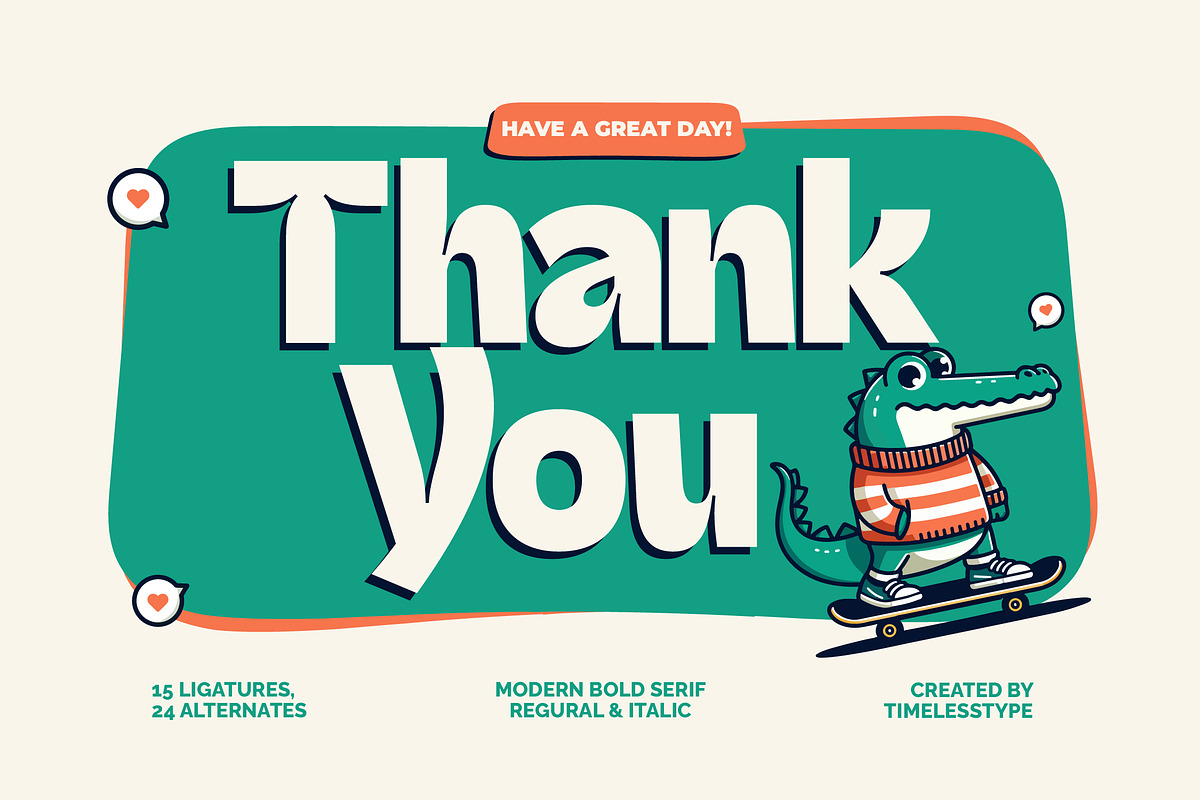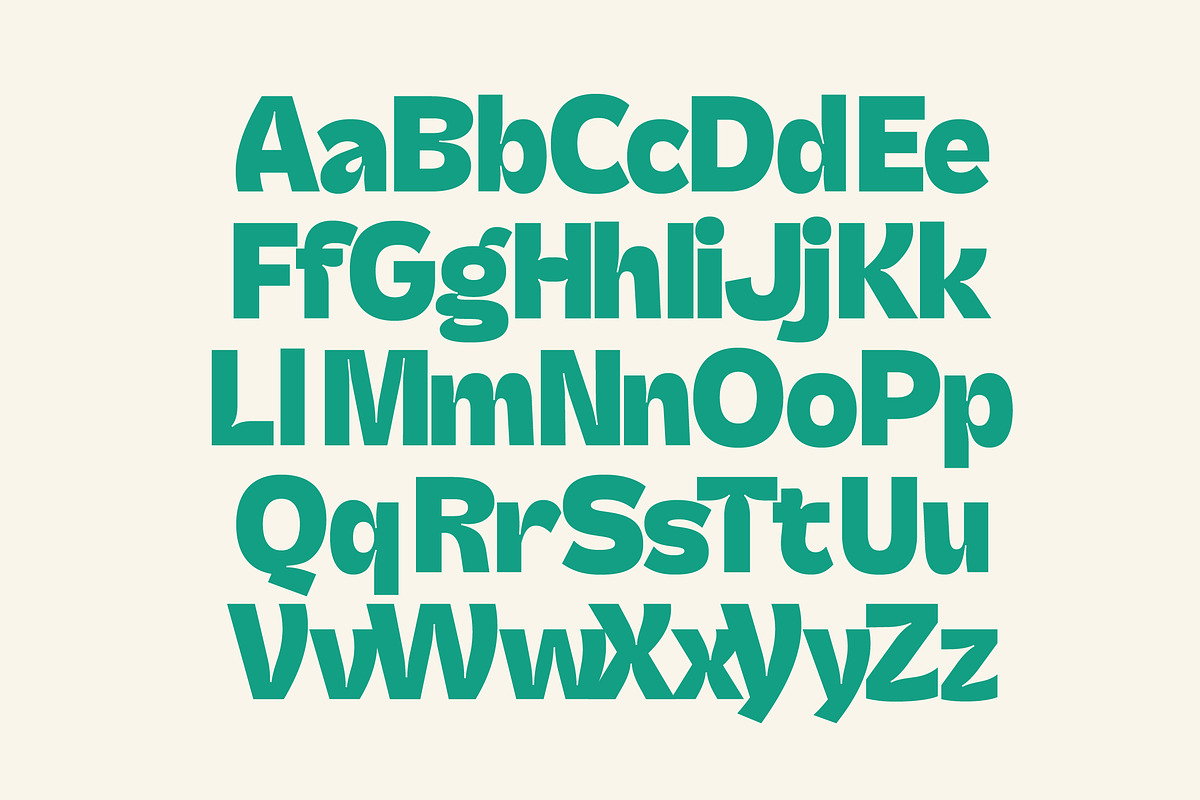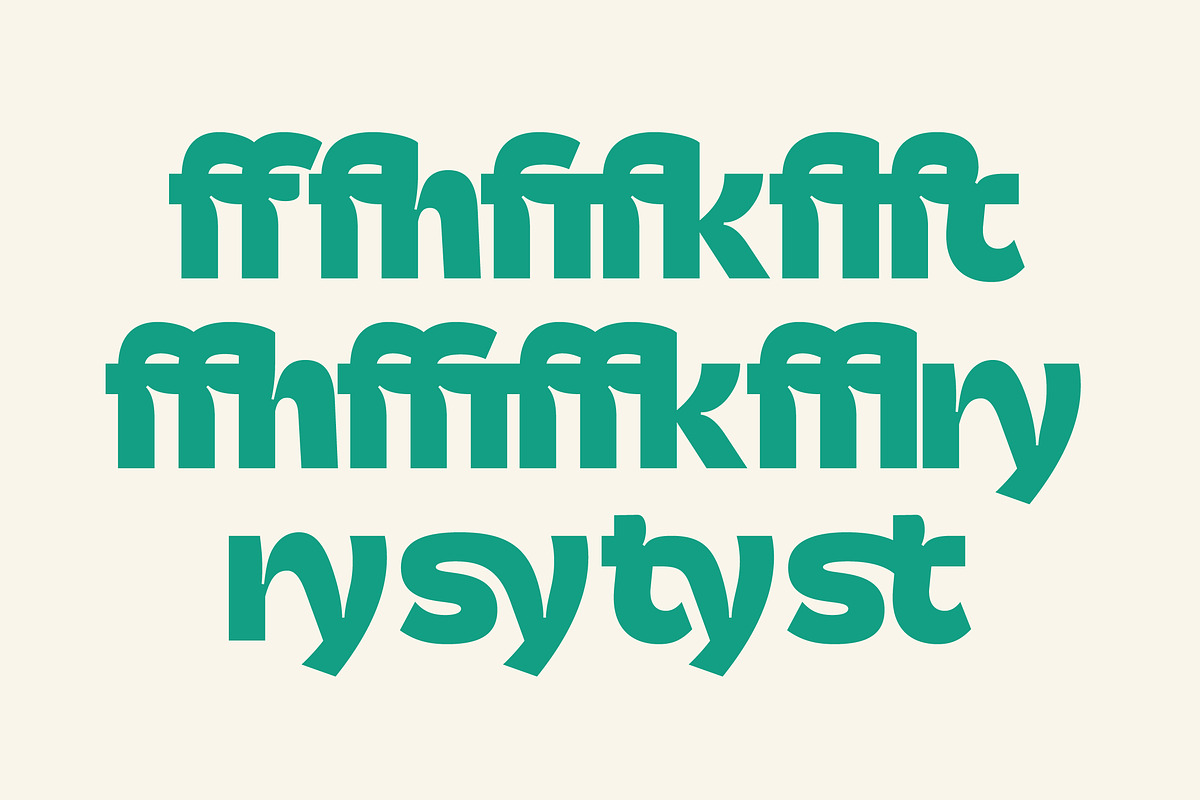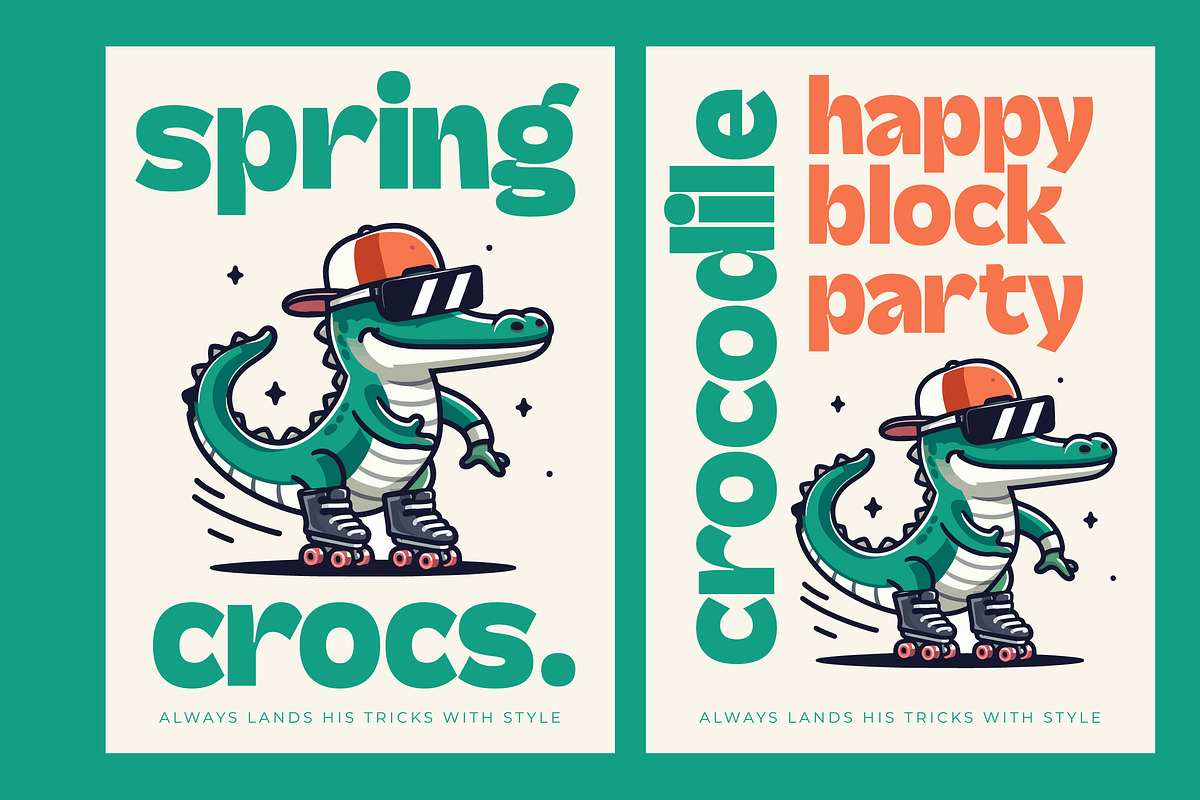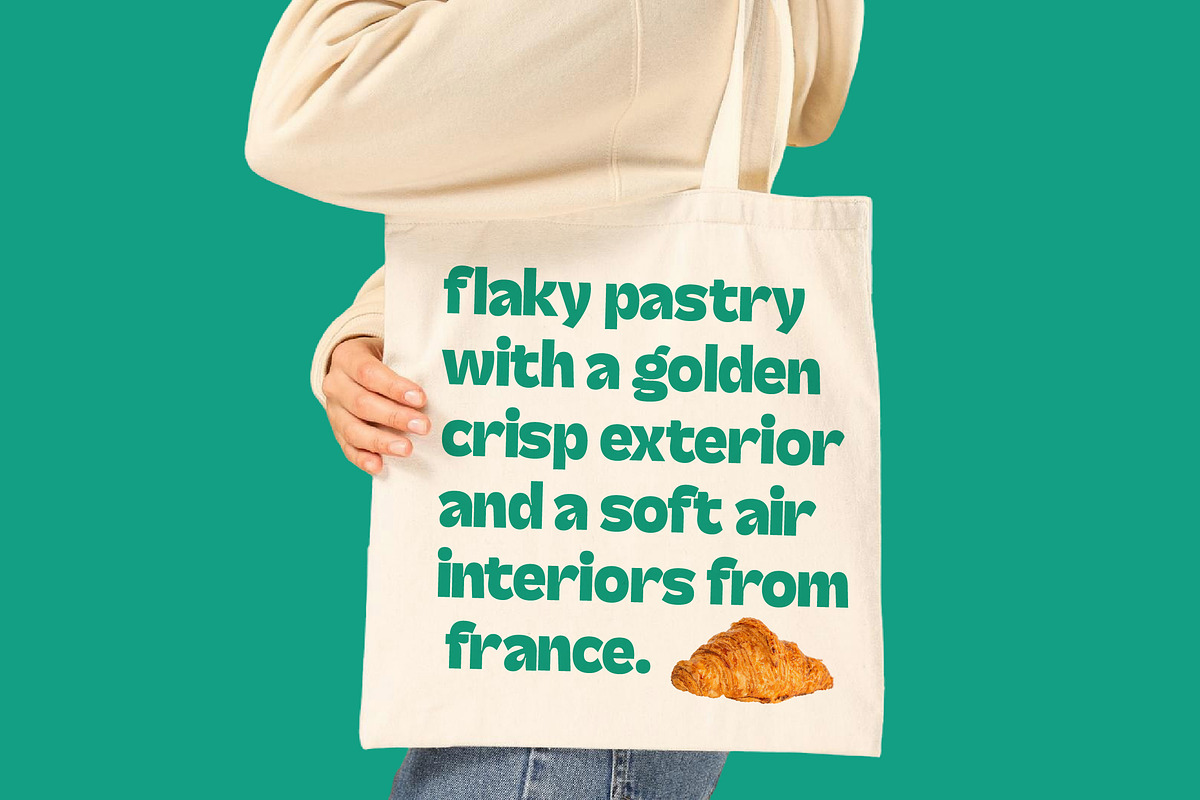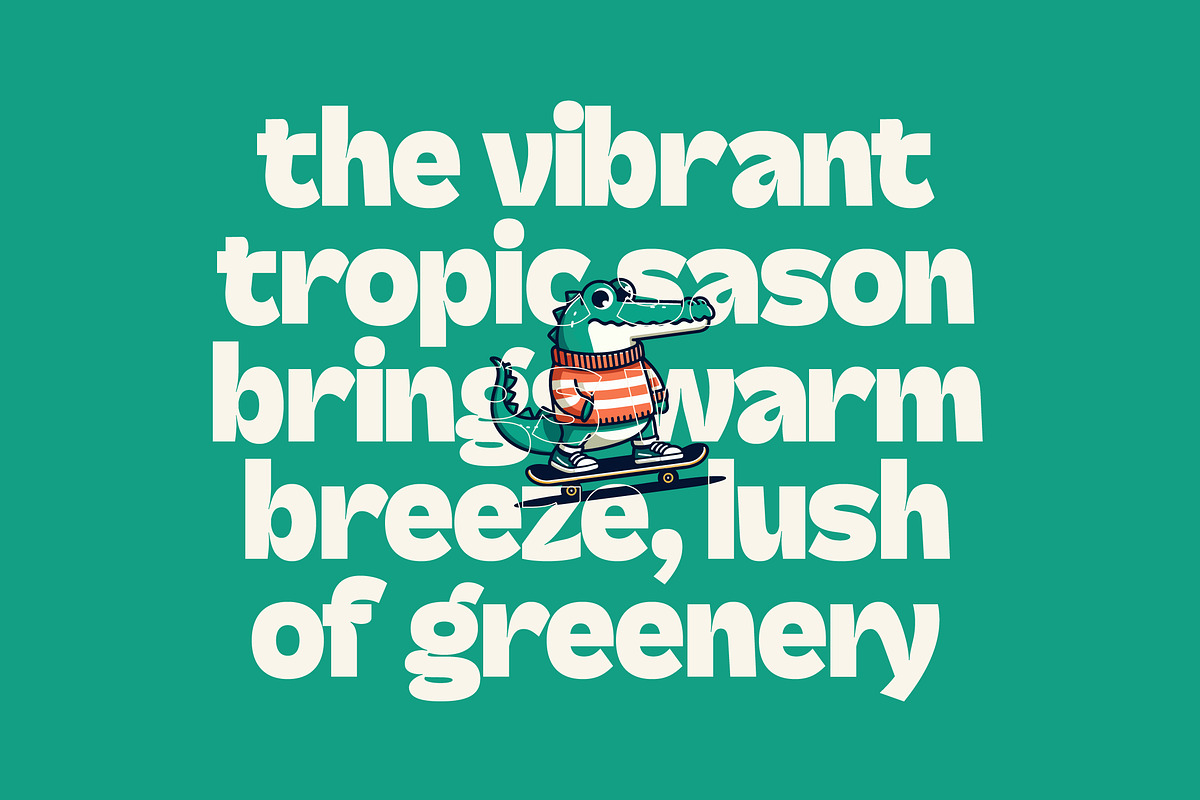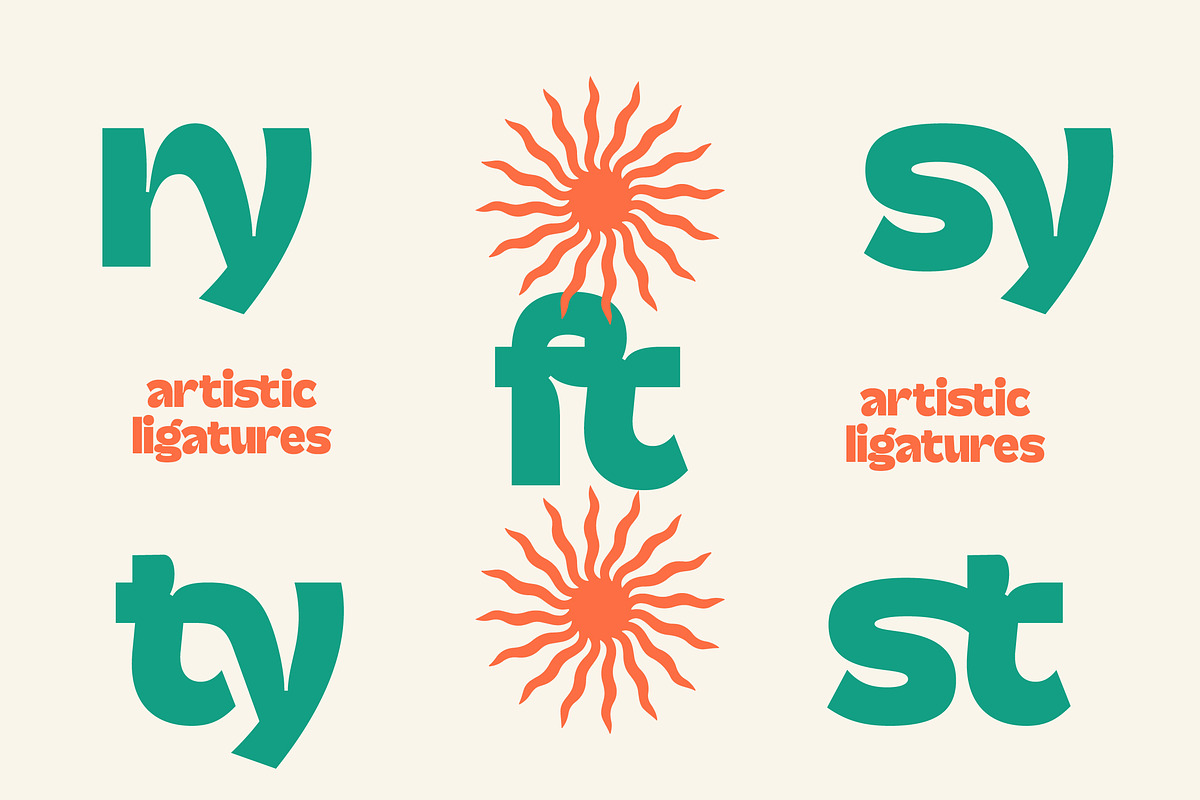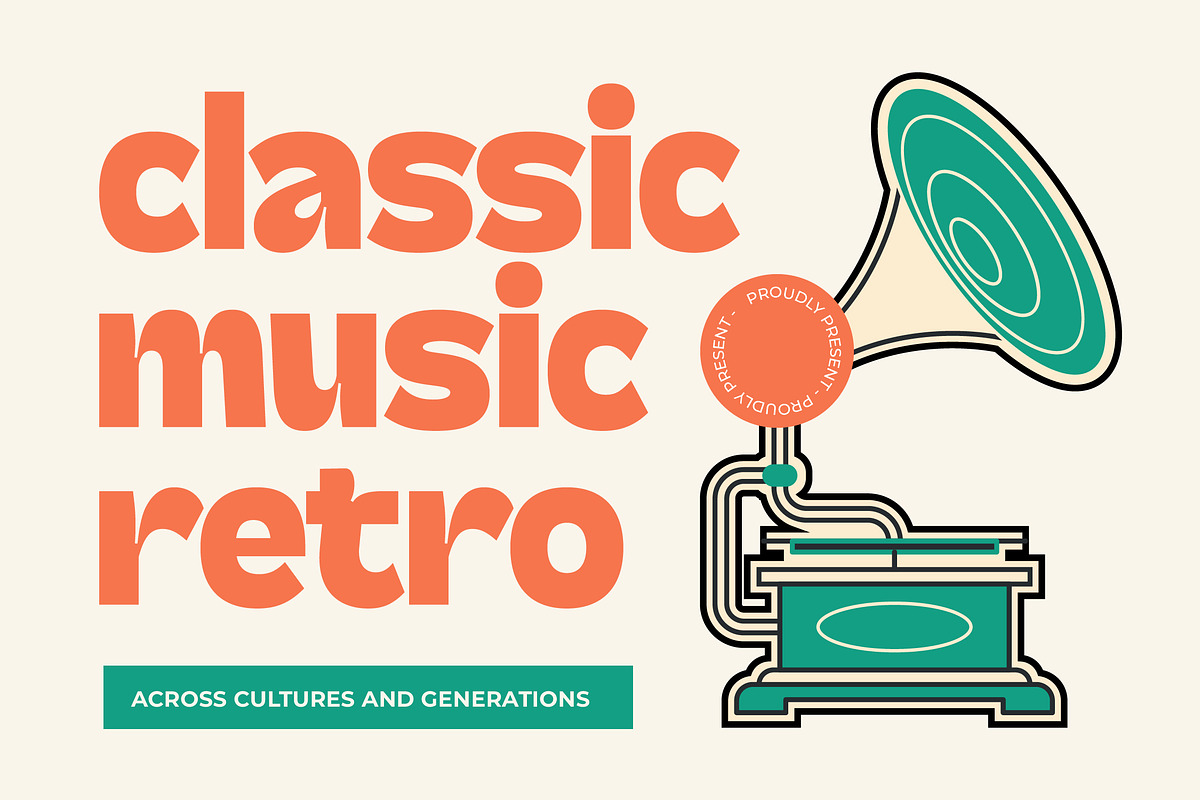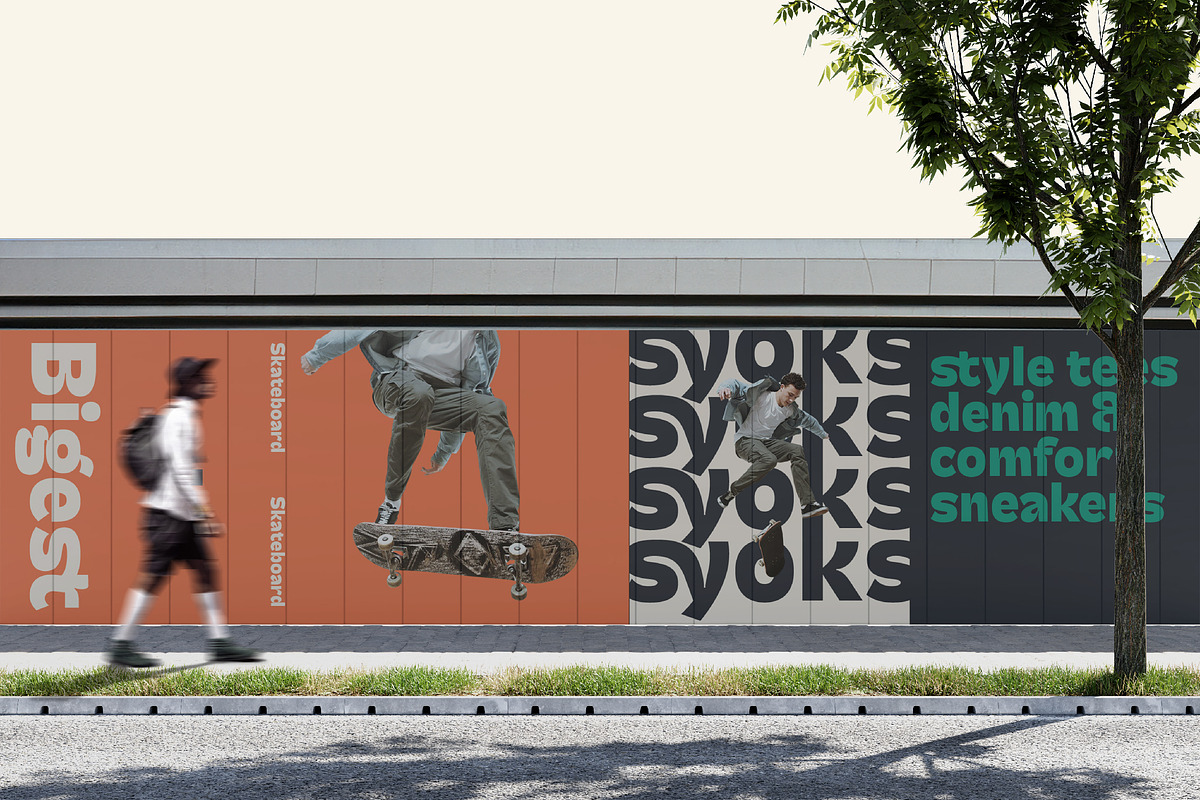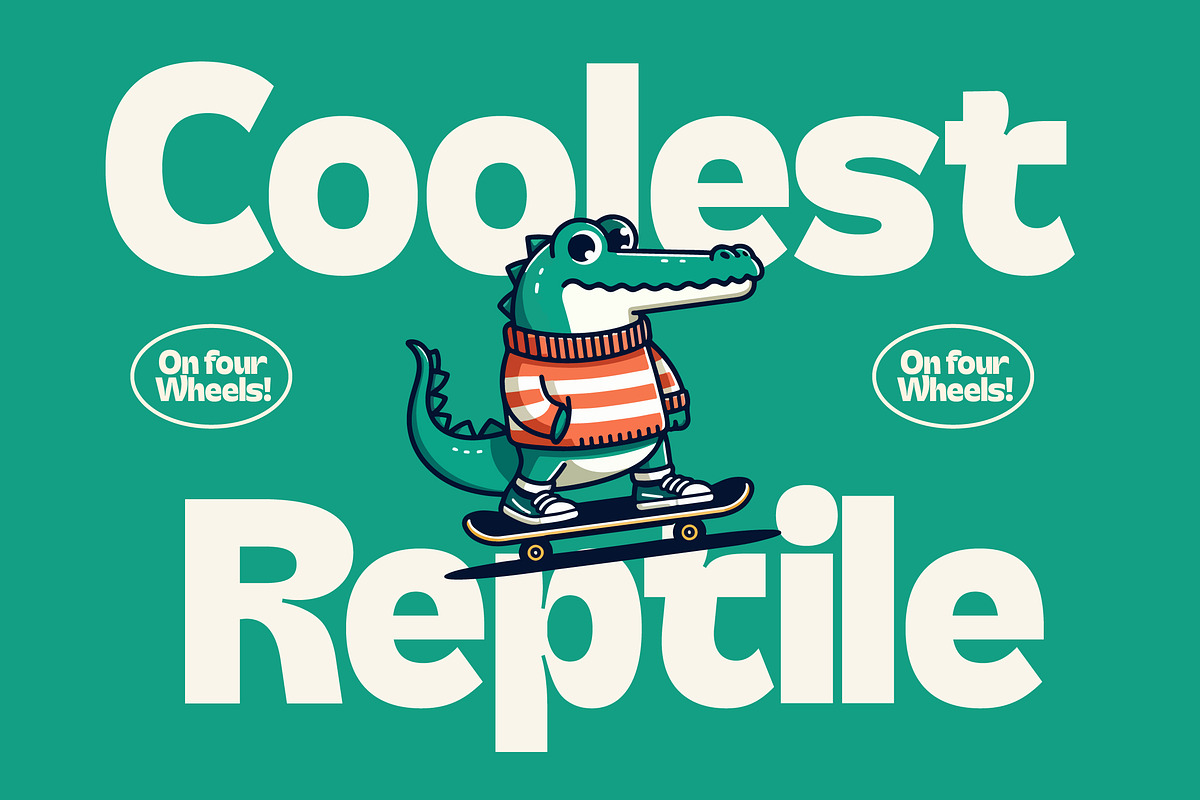
Skatyn Gator Modern Bold Serif
Skatyn Gator brings a punchy, high-energy vibe to your design toolkit, blending vintage cartoon aesthetics with a sharp modern edge. It’s a standout choice for creators who want their typography to leap off the page with personality and grit.
Inspired by the rebellious spirit of 90s skate culture and the whimsical charm of mid-century mascot art, this font captures a unique retro-cool atmosphere. The thick, blocky strokes and sharp serifs evoke a sense of nostalgic adventure, making it feel both familiar and refreshingly new.
This modern serif display is designed for maximum branding impact, offering a heavy-weighted presence that doesn't shy away from attention. Unlike a traditional luxury typography suite, it leans into a fun, editorial font style that balances weight and movement for a truly dynamic look.
Tapping into the current modern serif trend, this typeface is perfect for designers looking for character-driven typography that breaks away from sterile minimalism. It aligns perfectly with the rise of editorial display fonts that prioritize unique silhouettes and a hand-crafted, illustrative feel.
Whether you are working on a vibrant logo design or eye-catching packaging, this font provides the versatility needed for high-impact branding projects. It’s equally at home in a streetwear fashion lookbook as it is in a bold editorial layout or a quirky wedding invite for the unconventional couple.
The package is fully loaded with 15 ligatures and 24 alternates to give your text a custom, hand-lettered finish. It also features a comprehensive set of international characters and multilingual support, ensuring your message reaches a global audience with ease.
- Ligature 15 Alternate 24